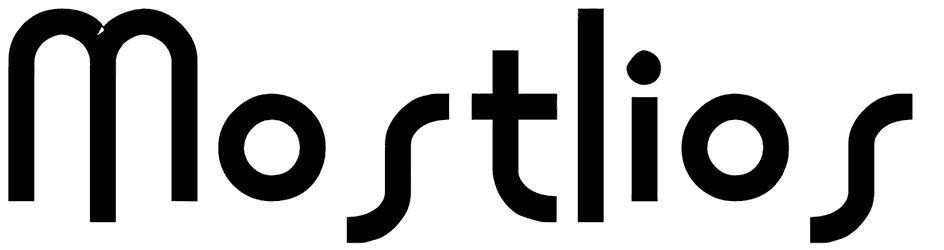
Mostlios Font
Designed byJohn A. Huebner II
Choosing a suitable font for creating high-end graphic content would be an overwhelming task, especially for novice designers, so we want to introduce you to a magical classic font, such as Mostlios, that comes with a mind-blowing style and increases the quality of your artwork.
This geometric font can be included in a wide set of editorial projects, ranging from movie brochures, digital banners, stickers, stationery, or invitations.